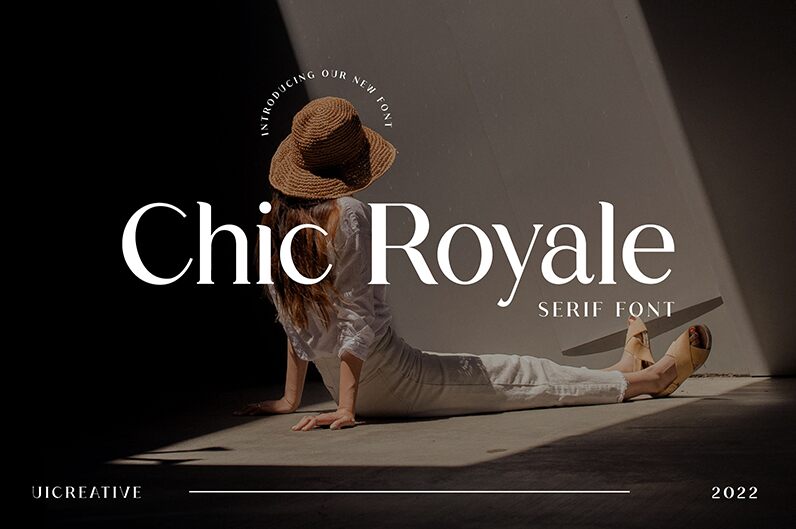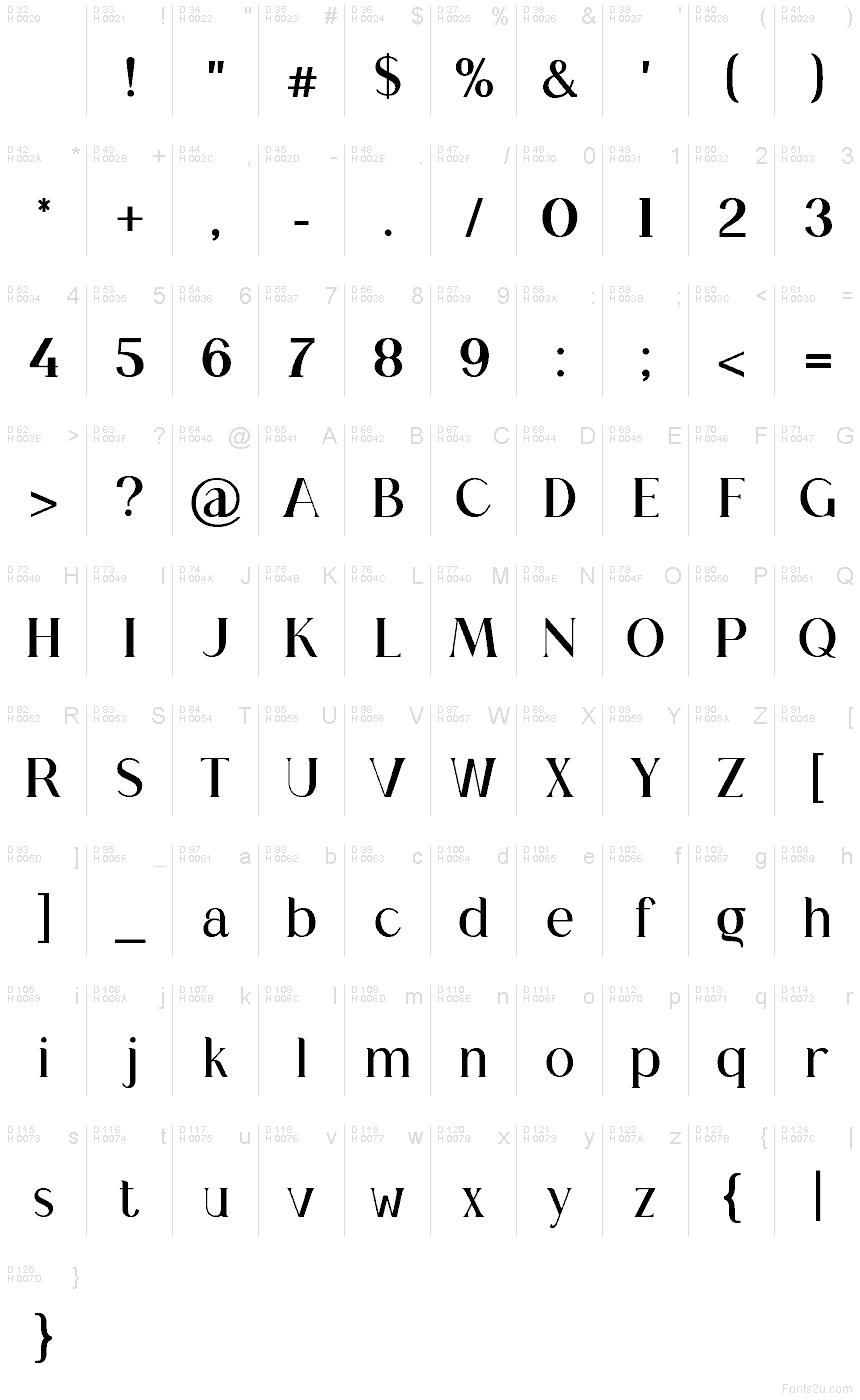
ChicRoyale
Chic Royale font by UI Creative is a free serif typeface that brings runway polish to your typography. Its slender verticals, refined curves, and sharp, inky details create a look that feels like a luxury magazine masthead or a perfume ad. The spacing is airy without feeling fragile, so headlines feel confident and glamorous rather than stiff or old-fashioned.
Using Chic Royale, this free font shines on fashion branding, beauty packaging, editorial covers, wedding stationery, moodboards, and social media graphics that need a touch of understated drama. It scales beautifully as a hero heading, especially when paired with a clean sans-serif for body text. Try generous letterspacing at larger sizes to let the elegant forms breathe and really show off their couture character.